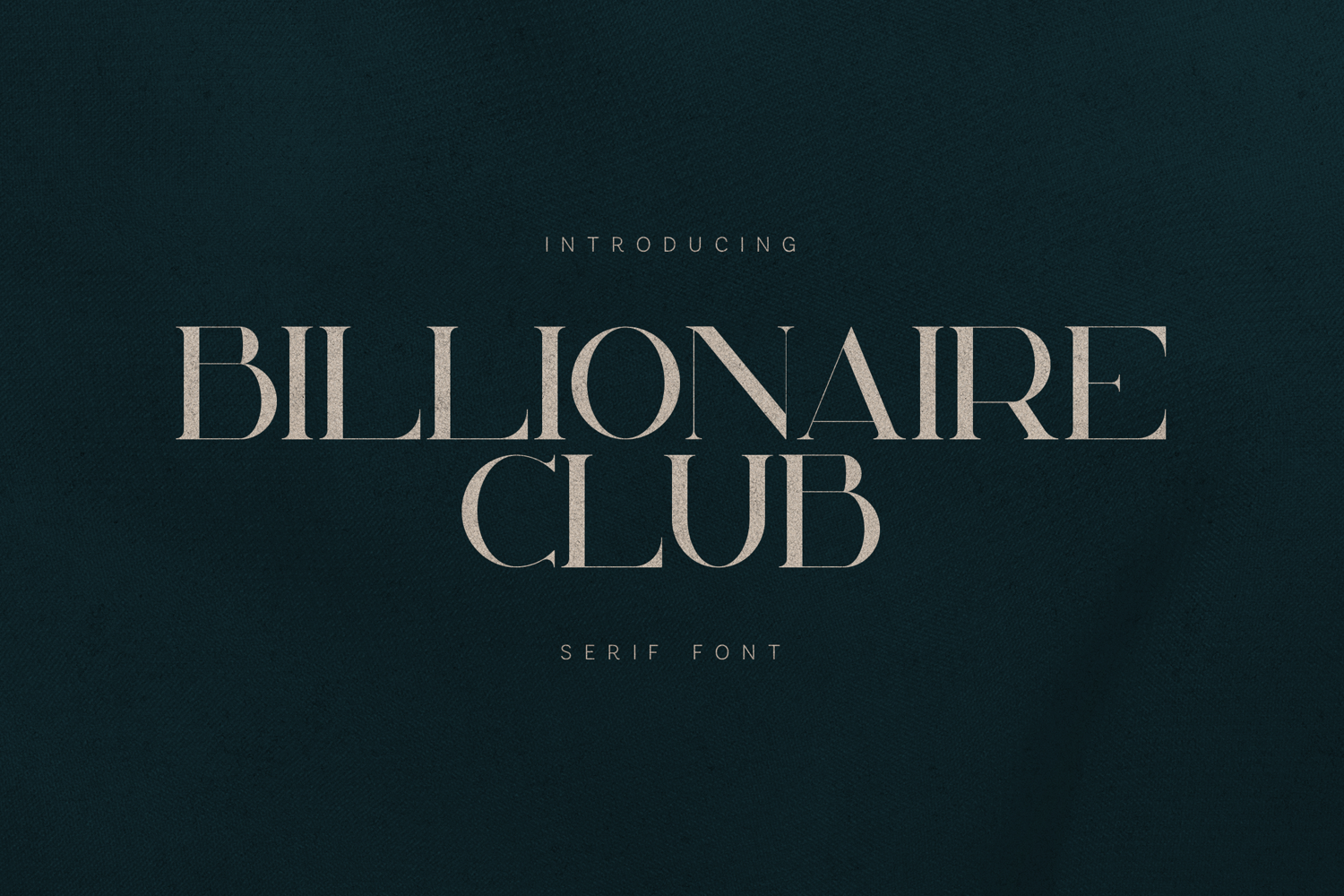
Billionaire Club Luxury Editorial Serif Font
Billionaire Club is a refined luxury serif font designed for high-end branding, editorial design, and sophisticated visual identities. Inspired by classic typography with a modern edge, it delivers elegance, confidence, and timeless character in every letterform.
With sharp contrasts, graceful curves, and balanced proportions, Billionaire Club is perfect for fashion brands, magazines, logos, luxury packaging, wedding designs, and premium editorial layouts. It performs beautifully in both large display settings and refined typographic compositions.
Billionaire Club includes uppercase and lowercase characters, numerals, punctuation, and multilingual support, making it a versatile and reliable choice for both print and digital projects.
Perfect For- Luxury & fashion branding
- Editorial & magazine design
- Logos & visual identities
- Wedding invitations & labels
- Beauty, lifestyle & premium products
- Headlines, posters & packaging
- Elegant modern serif style
- Uppercase & lowercase characters
- Numbers & punctuation
- Multilingual support
- Timeless, editorial aesthetic
- Suitable for print & digital use
Billionaire Club is crafted for designers who seek sophistication, clarity, and a premium typographic presence.